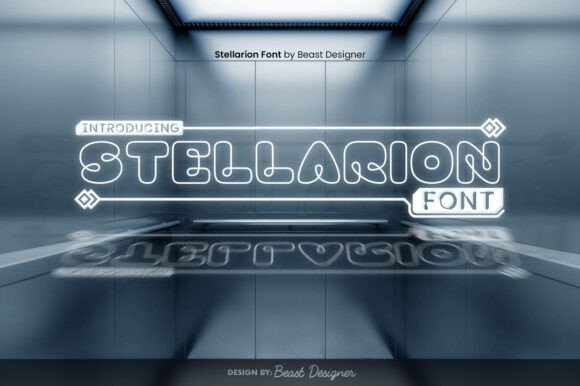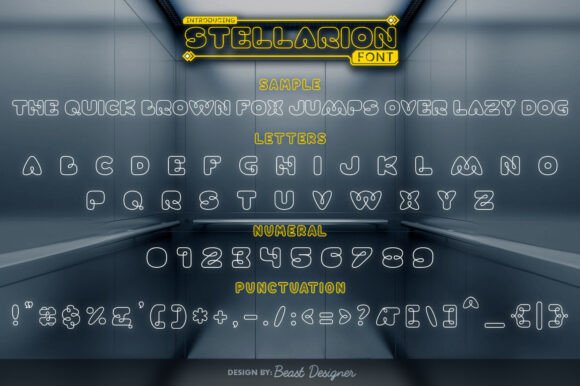
Stellarion Font: Bold & Futuristic Title Font for Sci-Fi & Tech Branding
About the Stellarion Font
Welcome to the world of Stellarion Font, a typeface that will inspire your next great project. Stellarion Font is a futuristic, bold outline font inspired by space and technology.
Perfect for sci-fi titles, gaming, tech branding, and futuristic designs, it adds a sleek, high-tech feel to any project.
Stellarion Font Usage Examples
Stellarion Font Example